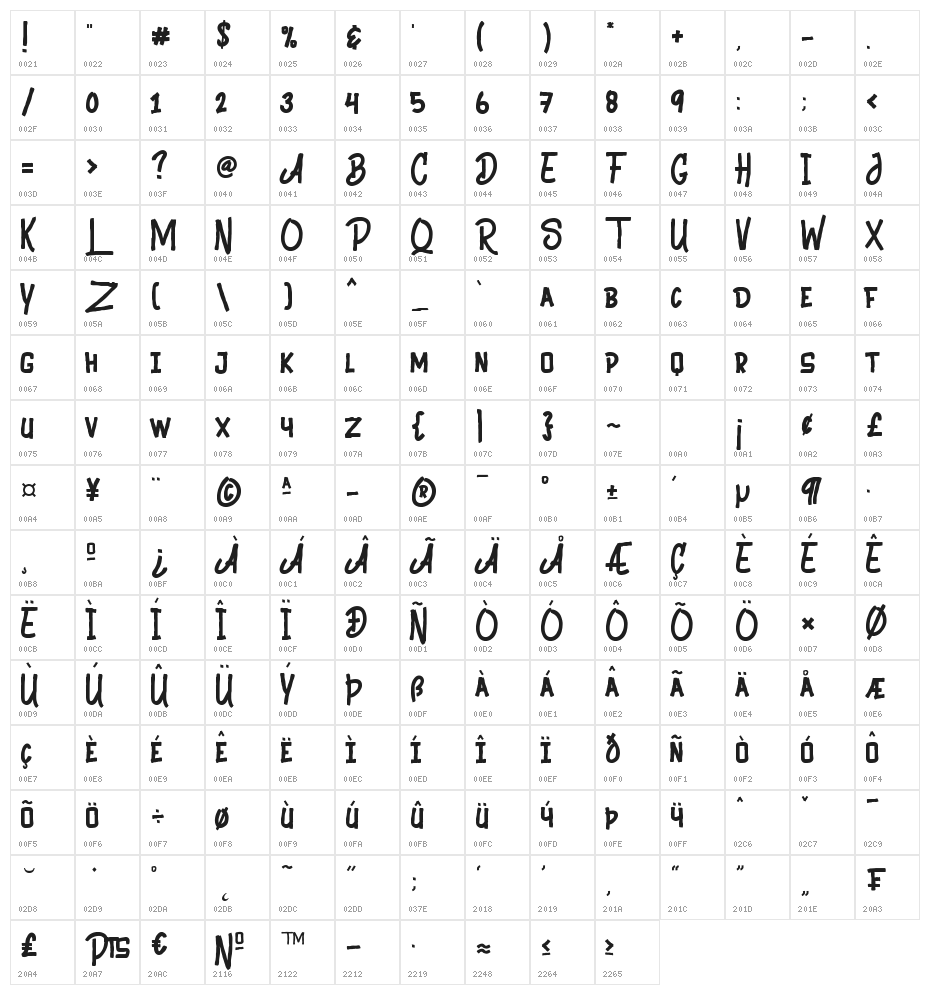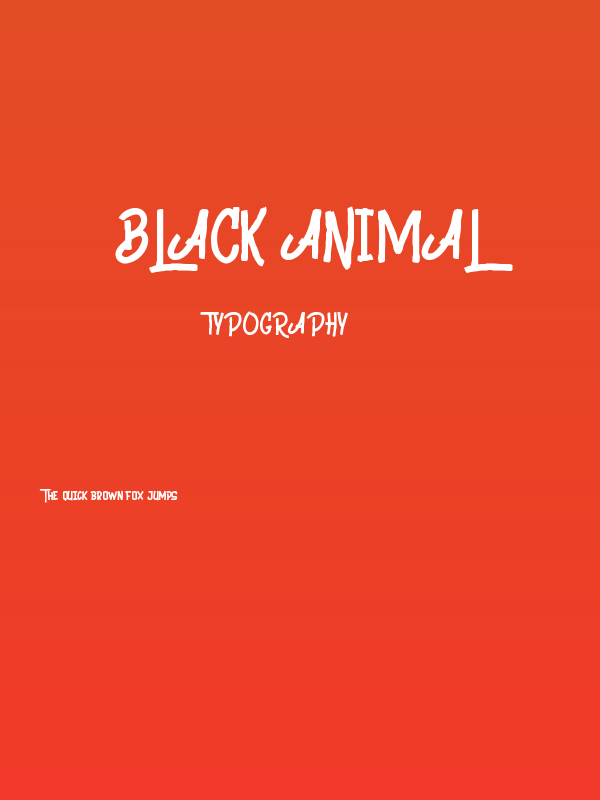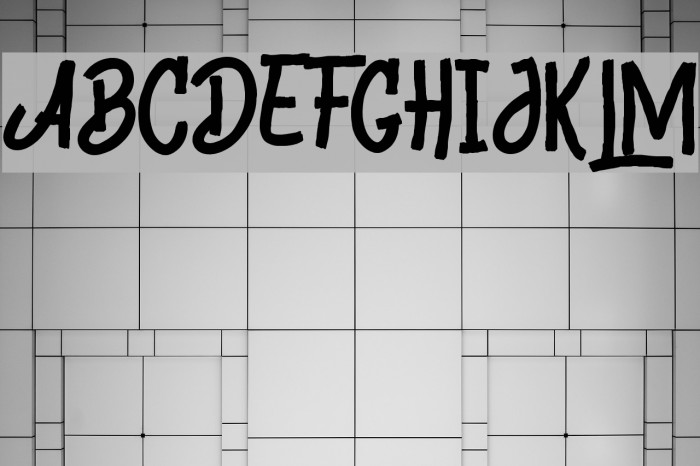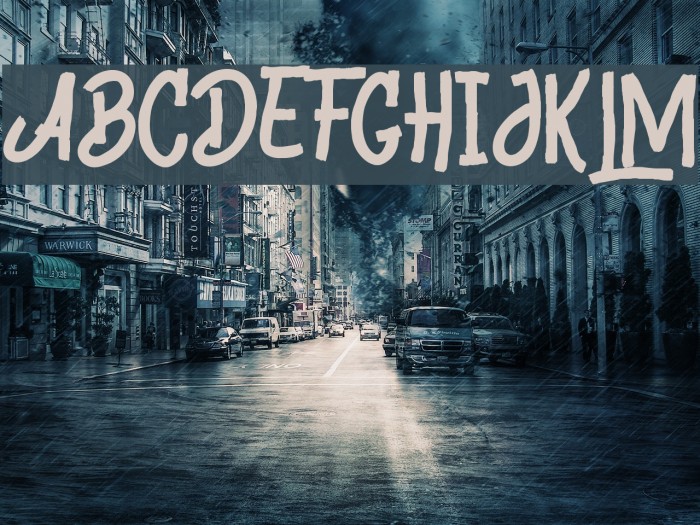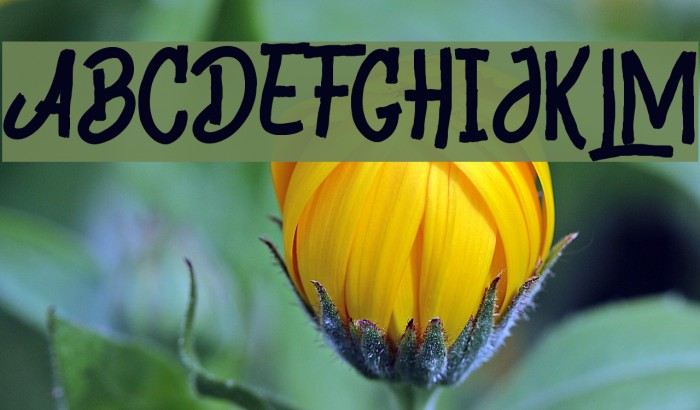
Black Animal Font
Black Animal Description
This font features a bold and expressive style with a hand-drawn appearance. The characters are thick and have a playful, almost graffiti-like quality. The uppercase letters are prominent and dynamic, while the lowercase letters maintain the same energetic feel. Numbers and special characters are equally bold, ensuring consistency across all text elements. The overall look is informal and artistic, making it suitable for projects that require a creative and eye-catching design.
| Proposed Projects | Ideal for posters, album covers, street art designs, and creative branding projects. |